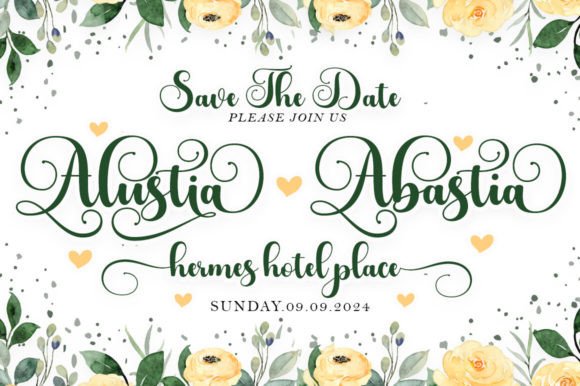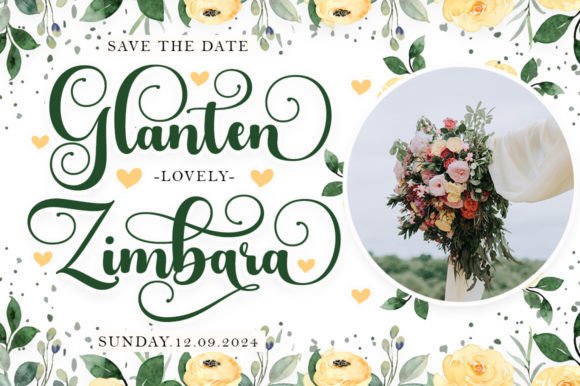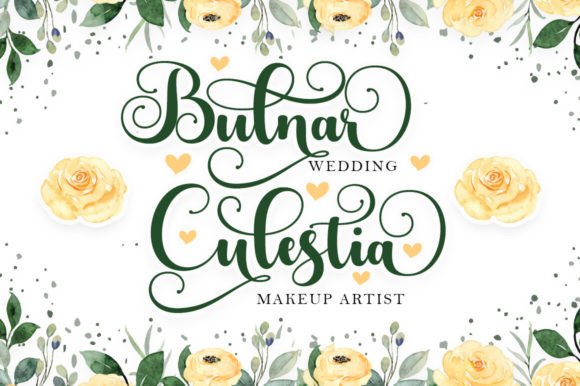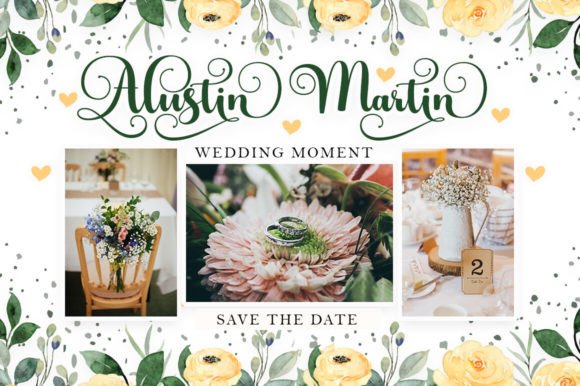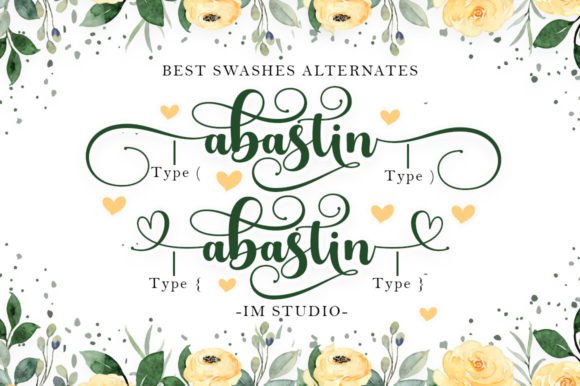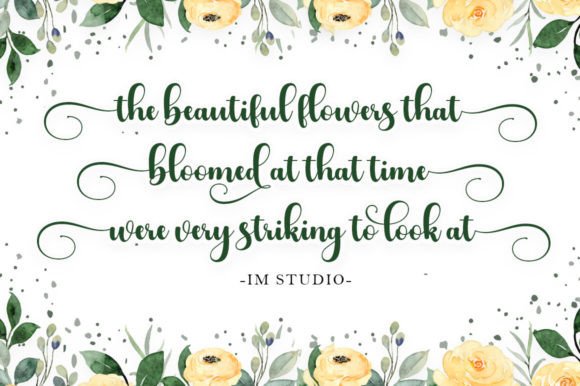
Introducing Alustia Font: The Sweet and Friendly Script for Your Creative Projects
Are you looking for a font that can add a touch of sweetness and friendliness to your designs? Look no further than Alustia Font! This beautifully crafted script handwritten font is perfect for creating wedding invitations, cards, and other designs that require a fun and elegant touch. In this article, we’ll dive into the features and benefits of Alustia Font, and explore how it can elevate your creative projects.
What is Alustia Font?
Alustia Font is a modern script font that boasts a fresh and sleek design. Its unique and flowing curves make it perfect for adding a touch of whimsy and romance to your designs. Whether you’re a designer, crafter, or DIY enthusiast, Alustia Font is an excellent choice for anyone looking to create beautiful and eye-catching projects.
Key Features of Alustia Font
- Sweet and Friendly Design: Alustia Font features a sweet and friendly design that is perfect for creating designs that require a personal touch.
- PUA Encoded: This font is PUA encoded, which means you can access all glyphs and swashes easily, giving you more creative freedom and flexibility.
- Handwritten Script: Alustia Font is a beautifully crafted handwritten script font that adds a touch of elegance and sophistication to your designs.
- Fresh and Sleek: The font’s fresh and sleek design makes it perfect for modern designs that require a clean and minimalist aesthetic.
Use Cases for Alustia Font
Alustia Font is an incredibly versatile font that can be used for a wide range of creative projects, including:
- Wedding Invitations: Create beautiful and elegant wedding invitations that set the tone for your special day.
- Cards and Stationery: Add a personal touch to your cards and stationery with Alustia Font’s sweet and friendly design.
- DIY Projects: Use Alustia Font to create custom labels, signs, and other DIY projects that require a personal touch.
- Branding and Packaging: Add a touch of elegance and sophistication to your branding and packaging with Alustia Font.
Benefits of Using Alustia Font
So why choose Alustia Font for your creative projects? Here are just a few benefits of using this beautiful font:
- Easy to Read: Alustia Font is incredibly easy to read, making it perfect for designs that require a clear and concise message.
- Highly Versatile: This font is highly versatile and can be used for a wide range of creative projects, from wedding invitations to DIY projects.
- Unique and Creative: Alustia Font’s unique and creative design makes it perfect for designers and crafters who want to add a personal touch to their projects.
Tips for Using Alustia Font
Here are a few tips for using Alustia Font in your creative projects:
- Pair with Other Fonts: Experiment with pairing Alustia Font with other fonts to create a unique and eye-catching design.
- Use for Headings and Titles: Use Alustia Font for headings and titles to add a touch of elegance and sophistication to your designs.
- Add Swashes and Glyphs: Take advantage of Alustia Font’s PUA encoding to add swashes and glyphs to your designs and give them a personal touch.
In conclusion, Alustia Font is a beautiful and versatile script handwritten font that is perfect for designers, crafters, and DIY enthusiasts. Its sweet and friendly design, PUA encoding, and fresh and sleek aesthetic make it an excellent choice for a wide range of creative projects. Whether you’re creating wedding invitations, cards, or DIY projects, Alustia Font is sure to add a touch of elegance and sophistication to your designs.